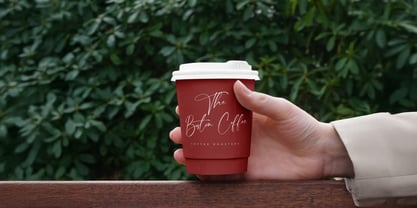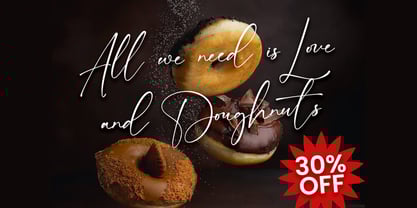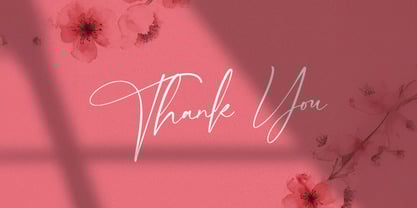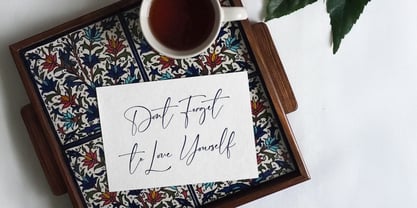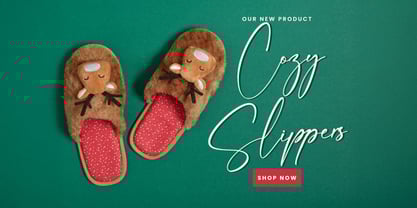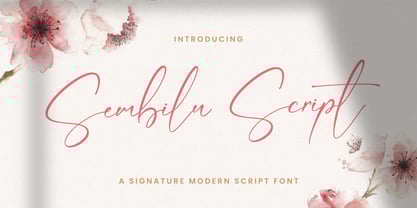
Sembilu Script
von Stringlabs Creative Studio
Die Schriftfamilie Sembilu Script wurde von Virgiawan Listanto entworfen und von Stringlabs Creative Studio veröffentlicht. Sembilu Script enthält 1 Stile. Mehr über diese Familie
Say hello to Sembilu Script, a deeply expressive handwritten font that speaks with emotion and style. Inspired by heartfelt notes and raw, artistic expression, Sembilu Script brings a natural flow and striking elegance to your typography.
Designer: Virgiawan Listanto
Foundry: Stringlabs Creative Studio